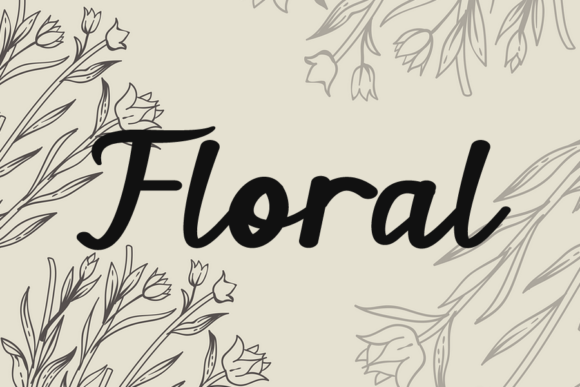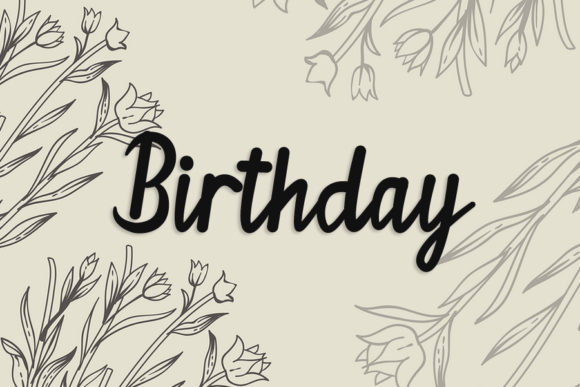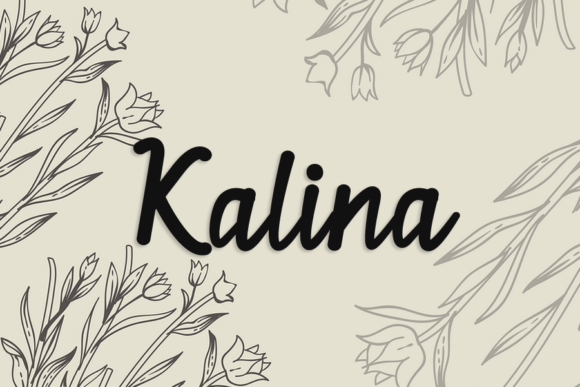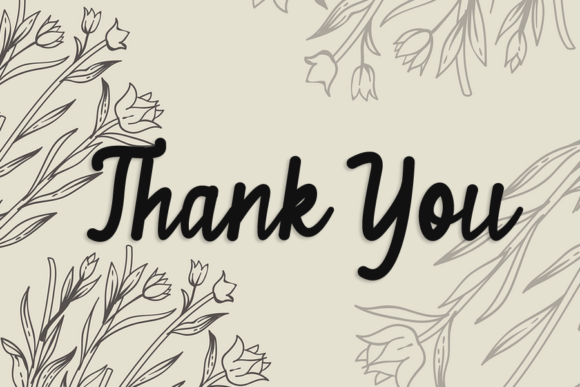
Discover the Magic of Bunny Font
Have you ever been brainstorming a new project, and suddenly, a spark of inspiration hits you? It’s that moment when everything falls into place, and your creative vision starts to take shape. For designers, this feeling is all too familiar. And, what if we told you that there’s a font that can help bring your ideas to life in the most enchanting way possible?
Meet Bunny Font, a delicate, elegant, and flowing handwritten font that’s perfect for adding a touch of whimsy and sophistication to your designs. With its beautiful and well-balanced characters, Bunny Font is the perfect companion for your most creative projects. Whether you’re working on a branding campaign, a wedding invitation, or a children’s book, this font is sure to make your designs shine.
Bunny Font Key Features
- Font Family: Bunny Font is a unique, hand-drawn font designed to resemble a cartoon bunny.
- Character Set: Supports a wide range of characters, including Latin, Cyrillic, and Greek alphabets, as well as punctuation and symbols.
- Font Size: Available in various sizes, from 8pt to 72pt, making it suitable for a range of applications, from small text to large headlines.
- Resolution: Optimized for high-resolution displays, including Retina and 4K screens, ensuring crisp and clear rendering of the font.
- Unique Characteristics: Bunny Font features a playful, whimsical design with a distinctive bunny-inspired theme, making it perfect for children’s books, cartoons, and other creative projects.
Bunny Font Review
I recently had the chance to work with the Bunny Font, and I must say it’s a unique addition to any design project. ✨ The font’s playful and whimsical feel is perfect for children’s books, nursery decor, or any other project that requires a touch of innocence and charm.
The font’s rounded edges and soft curves make it visually appealing, and the varied font weights allow for a good range of design possibilities. ✨ I particularly liked the way the font handles text alignment, making it easy to create a balanced and harmonious composition.
However, there are some limitations to consider. ⚠️ The font may not be the best choice for projects that require a high level of professionalism or sophistication. Additionally, the font’s whimsical feel may not be suitable for all audiences, and some users may find it too childish.
Here are some key pros and cons of the Bunny Font:
- ✨ Playful and whimsical feel perfect for children’s projects
- ✨ Rounded edges and soft curves make it visually appealing
- ✨ Varied font weights for a range of design possibilities
- ⚠️ May not be suitable for professional or sophisticated projects
- ⚠️ May be too childish for some audiences
Overall, I would recommend the Bunny Font for designers looking to add a touch of playfulness and innocence to their projects. However, it’s essential to consider the project’s goals and audience before making a final decision.
The Bunny Font is ideal for:
Children’s book illustrations
Party invitations
Wedding decorations
Children’s birthday parties
Tips for Getting the Most Out of Bunny Font
Experiment with different font sizes and colors to create a playful and whimsical atmosphere.
Combine Bunny Font with other playful fonts to create a unique and eye-catching design.
Use Bunny Font in conjunction with illustrations or graphics to create a visually appealing design.
Alternatives to Bunny Font for Designers
Bunny Font is a fun, playful font used for various design projects. However, there are several alternatives that offer similar characteristics and can be used in different contexts.
Pacifico is a beautiful, elegant script font that can be used for invitations, wedding designs, and other creative projects. It’s perfect for adding a touch of sophistication and romance to your designs. Compared to Bunny Font, Pacifico is more refined and suitable for formal events.